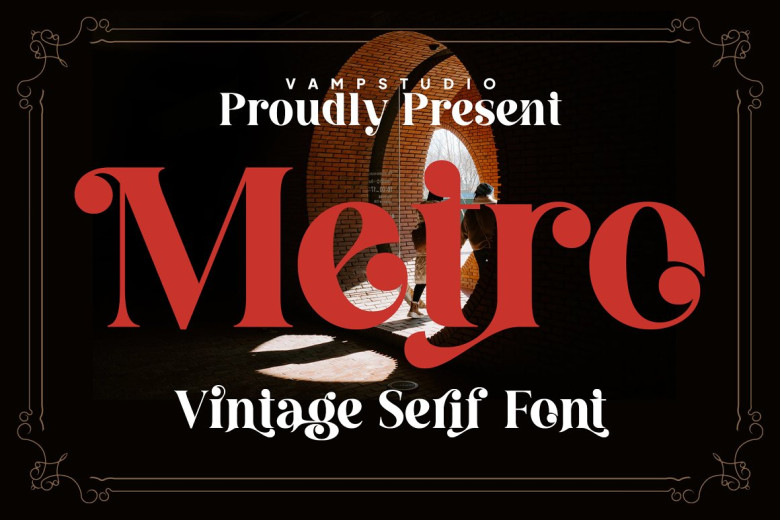
Metro Font
Metro is an elegant vintage serif font designed by skilled hands that exudes vintage charm. This font makes an excellent choice for branding, logo wedding designs and social media posts as well as advertisements, packaging of products designs, label for product photos watermark invitations stationery invitations or other projects which require written signatures.
Metro Serif Font